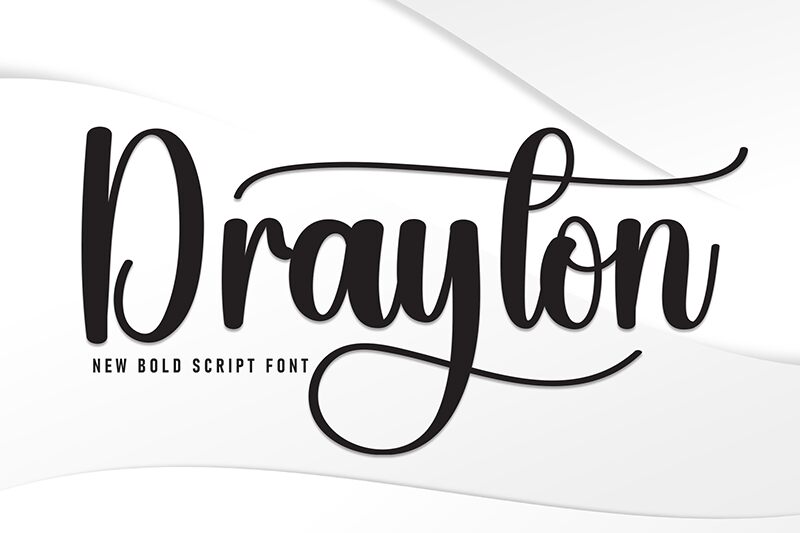
Drayton
Drayton font by Scratchones is an elegant, modern, expressive brush font with script-style letters. It has a flowing design in which all of the beautifully curved characters work together to create outstanding and eye-catching typography. Amazing endings noticeably affected by whipping brush movements are noticeable in the first look at this free handwritten font.
Use Drayton for logotypes, packaging designs (coffee, tea, or beer), book covers (novels), poster designs (movies), and branding projects. The luxurious feel will also make an impression on invitation cards and decorated websites or mobile apps.